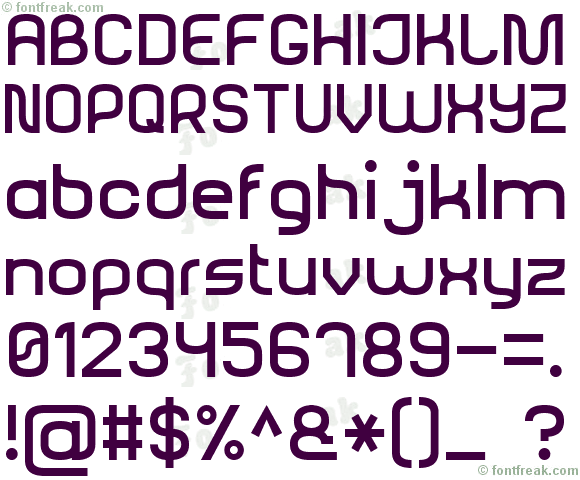
Rounded Sans Serif 7
Rounded Sans Serif 7 by Style-7 is a modern sans-serif font that combines a friendly aesthetic with a professional demeanor. Its rounded edges create a soft and approachable vibe, making it an excellent choice for various design applications. The font features a consistent stroke weight, providing a harmonious look throughout, while the minimal contrast ensures legibility in a wide range of sizes. The clean lines and ample spacing enhance readability, making this font suitable for both print and digital media.
This versatile font can be effectively utilized in several contexts. For instance, its playful yet sophisticated appearance makes it ideal for children's book covers and educational materials, where clarity and engagement are paramount. Additionally, Rounded Sans Serif 7 works well in branding projects, particularly for startups and small businesses looking to convey a modern and approachable image. It is also an excellent choice for website headers and social media graphics, where eye-catching design is essential for capturing audience attention. Restaurant menus and promotional flyers can benefit from the font's clean lines, ensuring that text remains easily readable while maintaining an attractive layout.